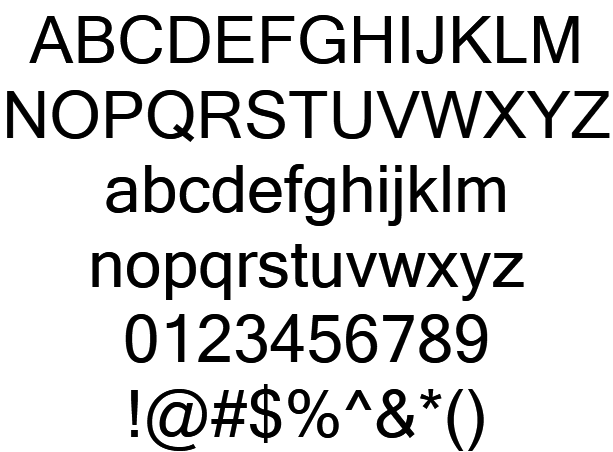
Developed By Type Mattox Shuler, It Is A Great Font For Those Seeking A Modern And Professional Look.
They are one of the most versatile styles of fonts available to designers, and the style encompasses many different sub. Posted on december 25, 2019; Web here, we introduce a sans serif typeface known as termina font.
The Most Common Examples Are Arial And Helvetica.